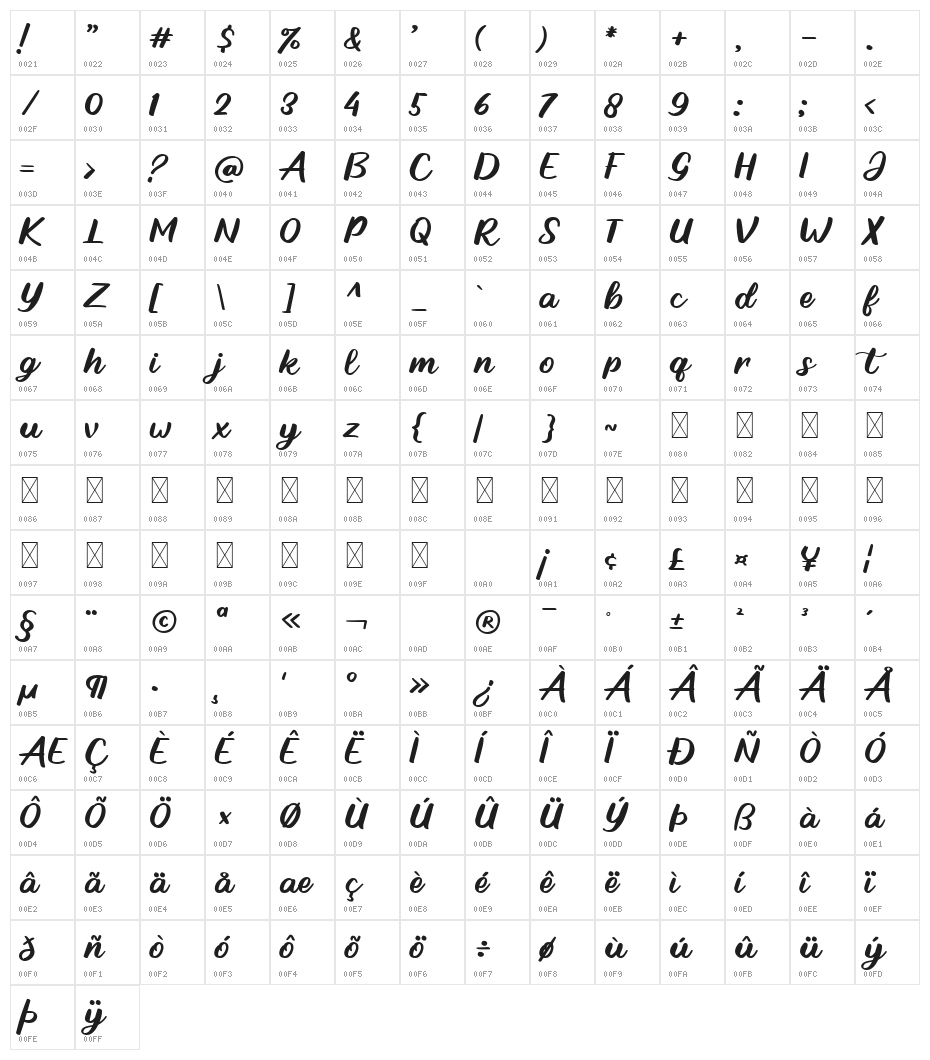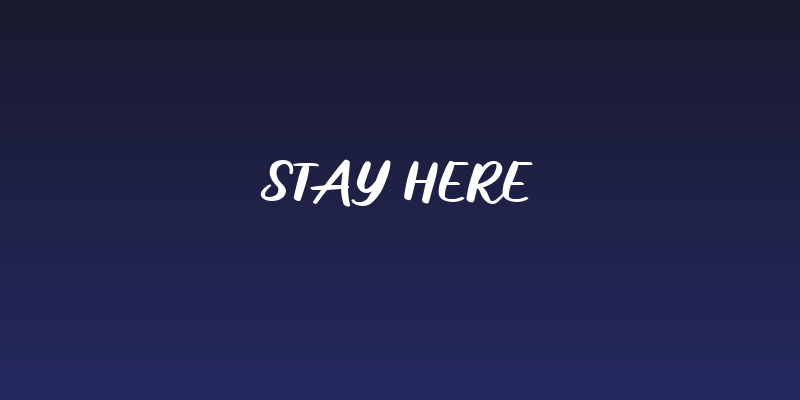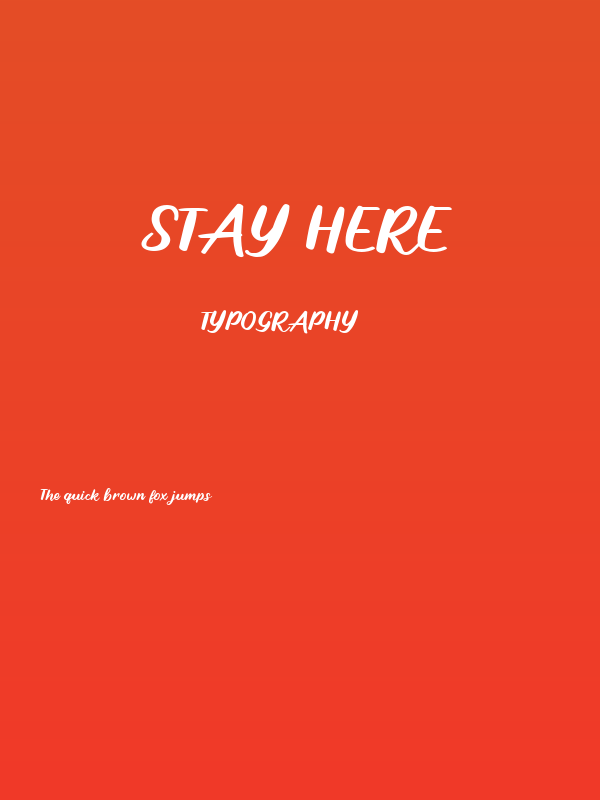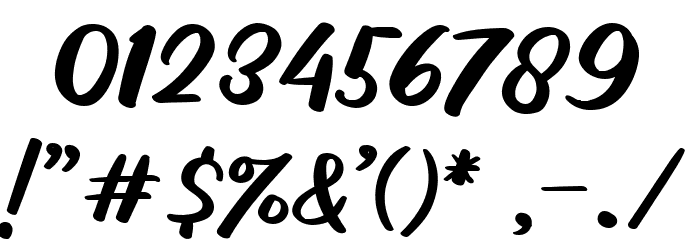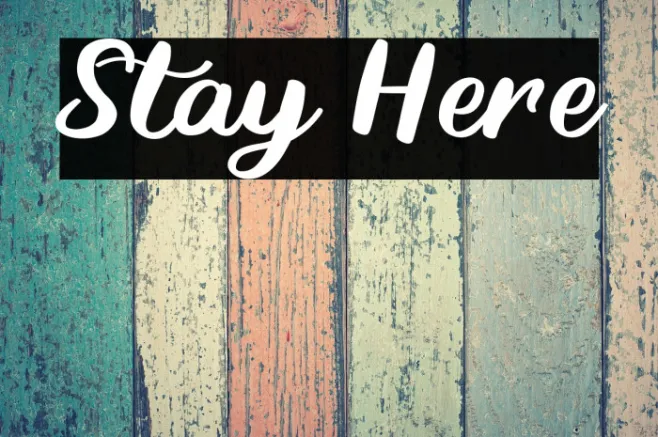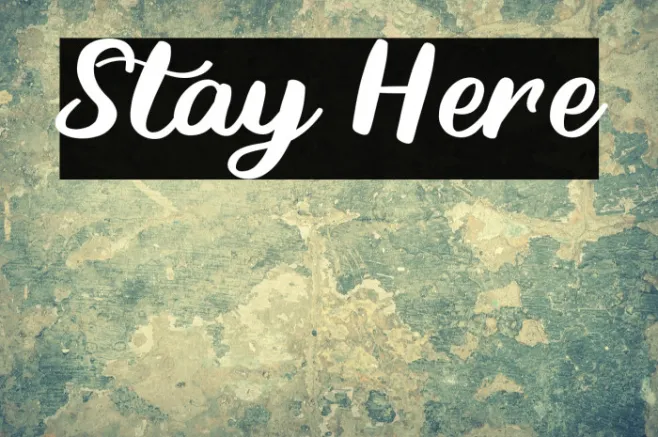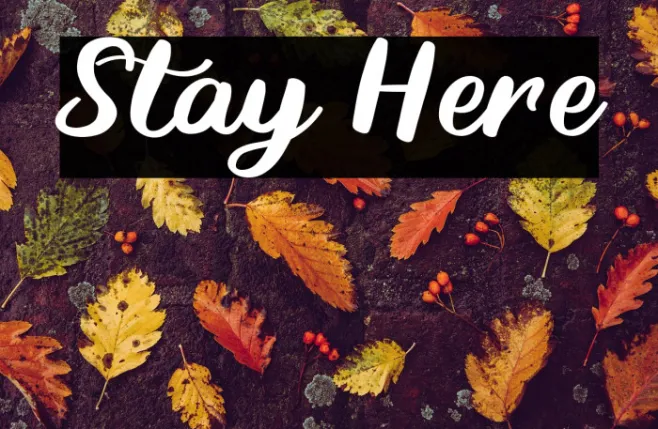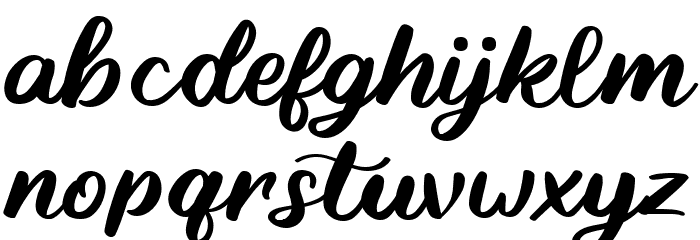
Stay Here Font
Stay Here Description
This font features a bold and expressive script style, characterized by its flowing, cursive letterforms. The uppercase letters are elegantly crafted with sweeping curves and a slight slant, giving a sense of movement and dynamism. The lowercase letters maintain a consistent style, with smooth connections between strokes, enhancing the font's fluidity. Numbers and special characters are designed to match the overall aesthetic, ensuring a cohesive look across all text elements. The font's bold weight and medium contrast in stroke thickness make it highly legible while retaining its decorative appeal.
| Proposed Projects | Ideal for branding, invitations, greeting cards, and other creative projects that require a personal touch. |